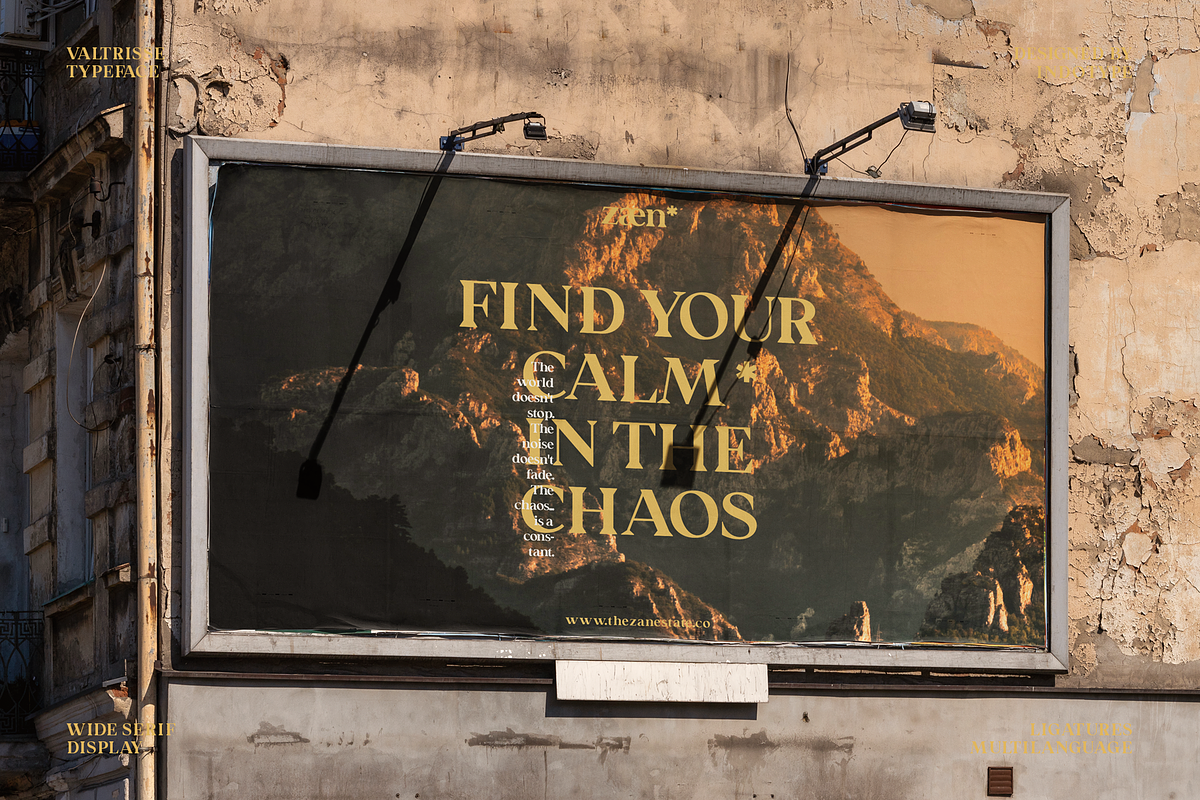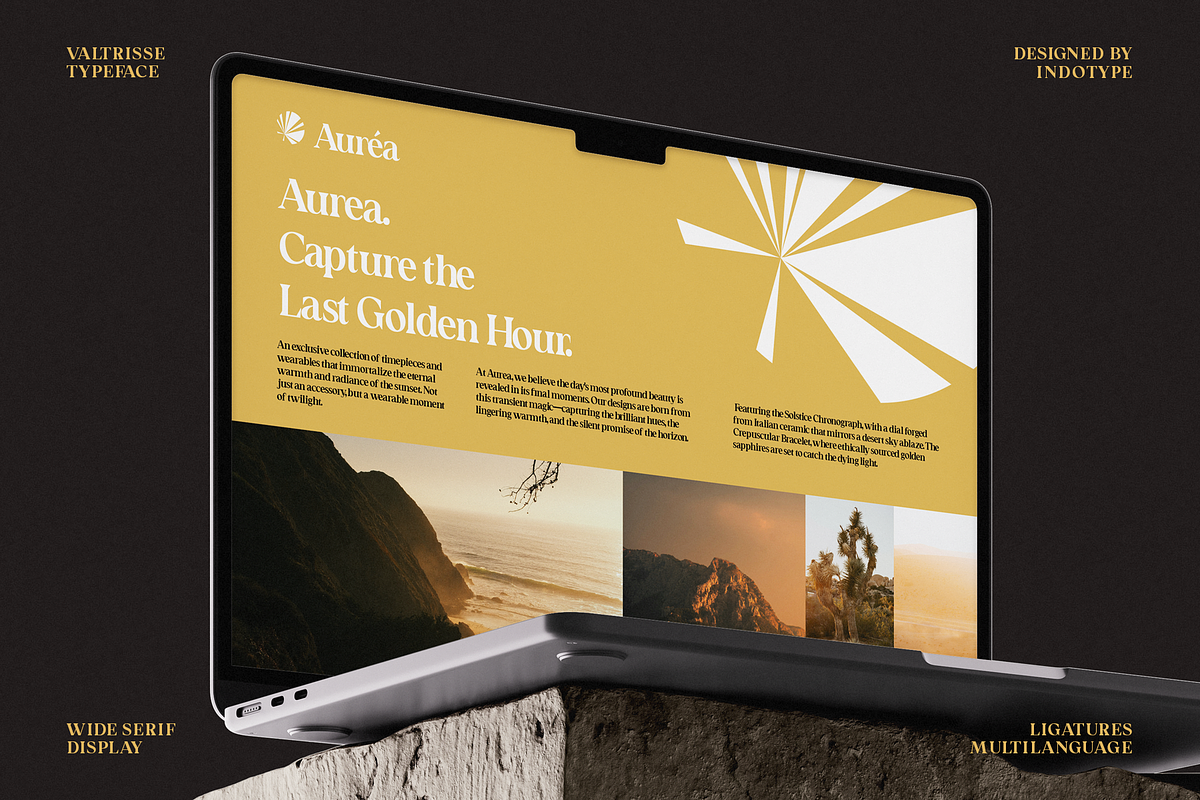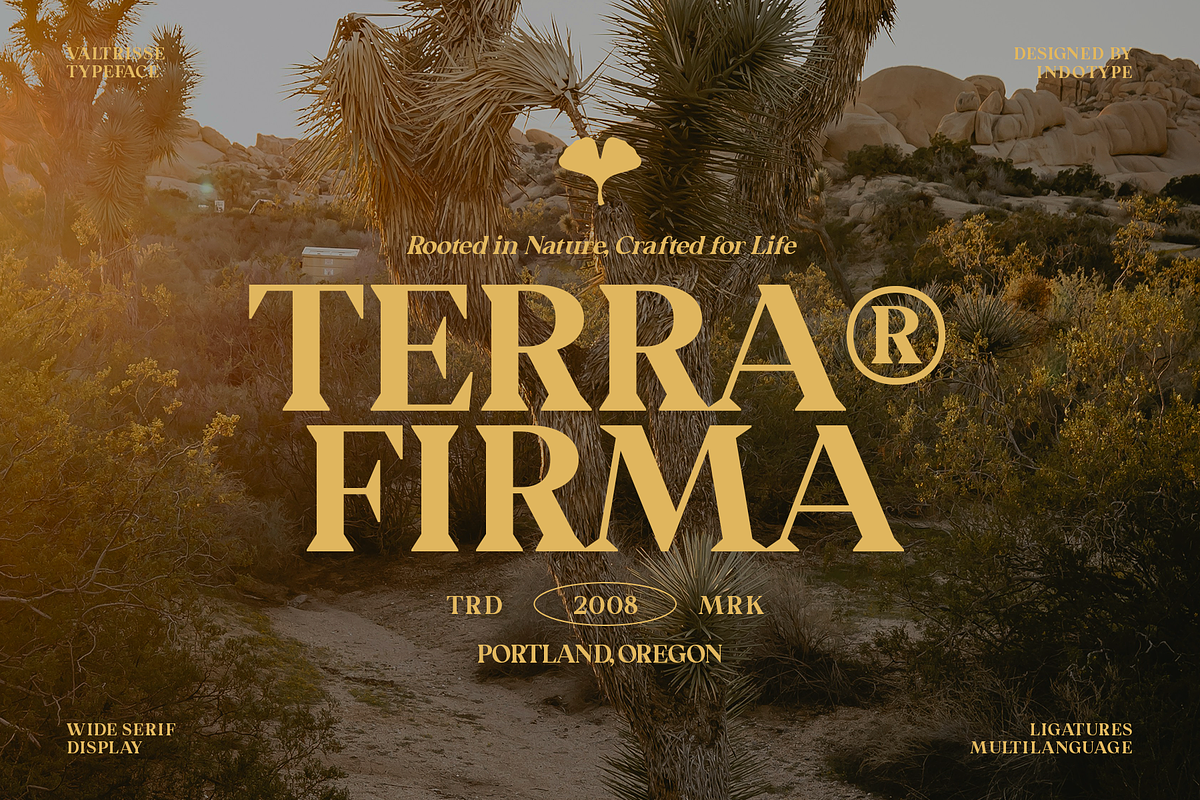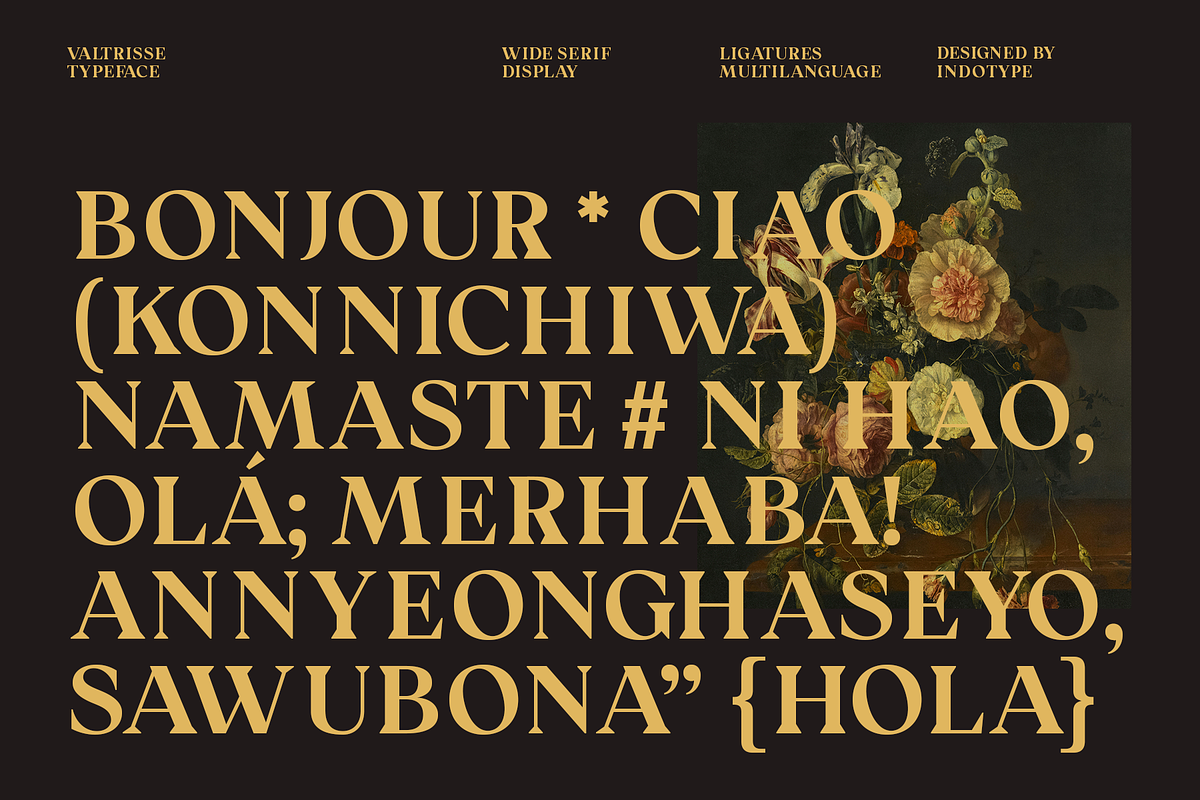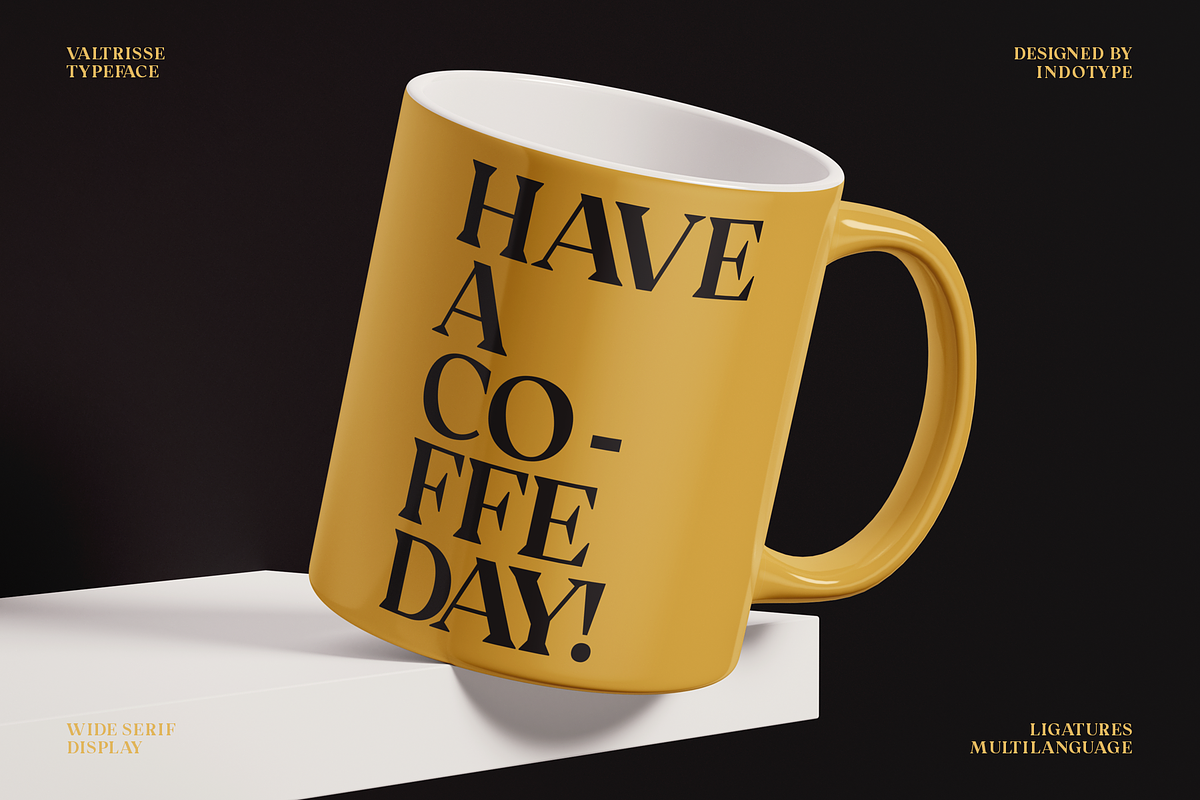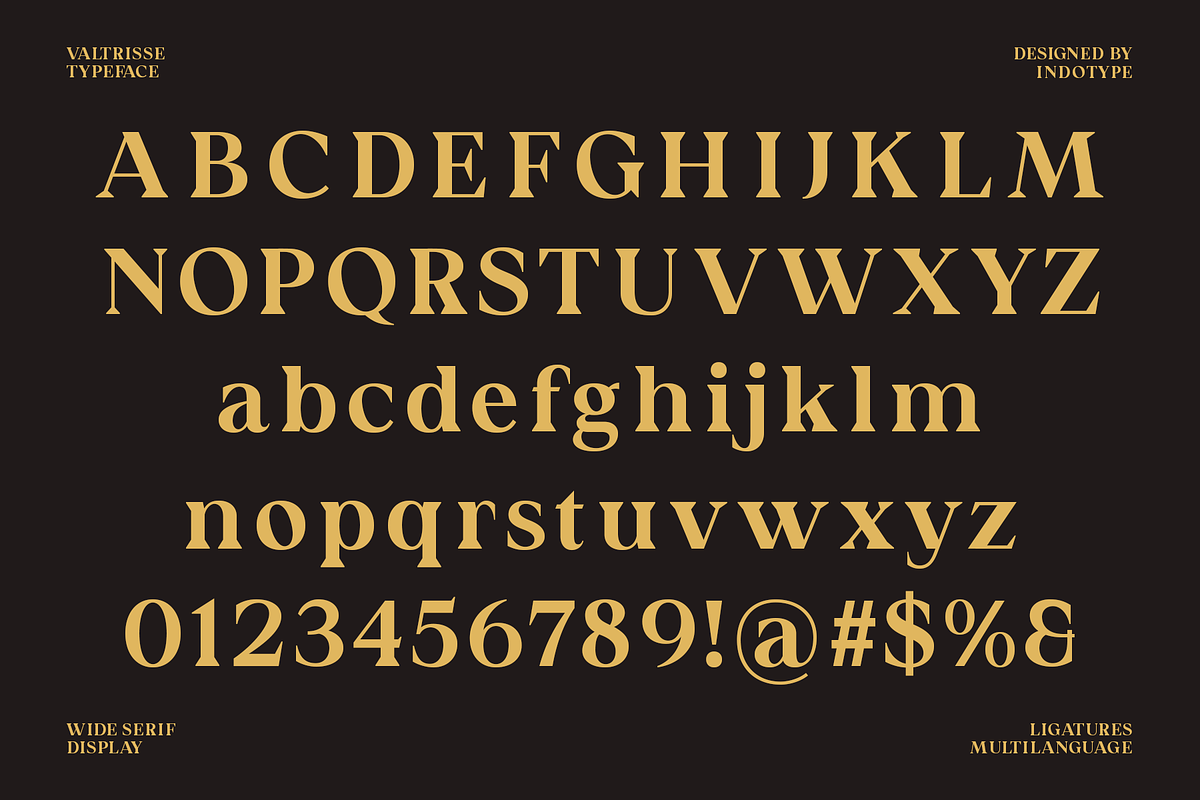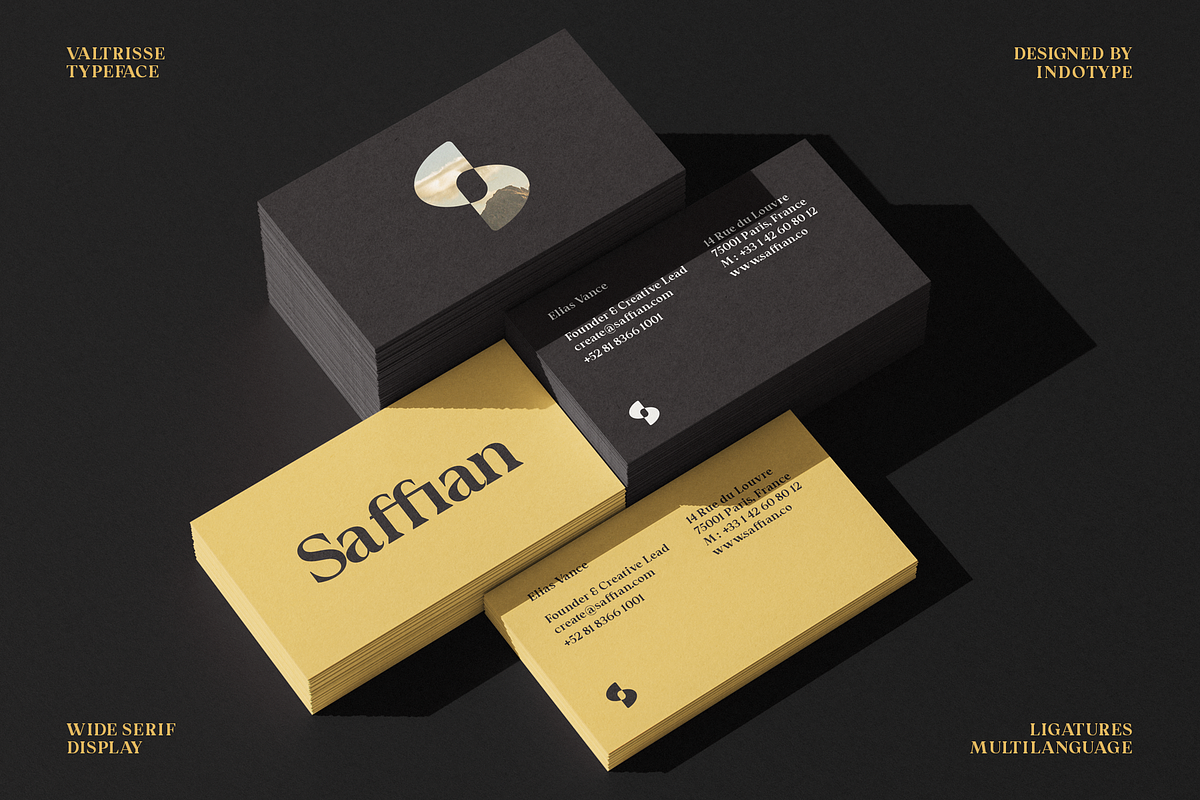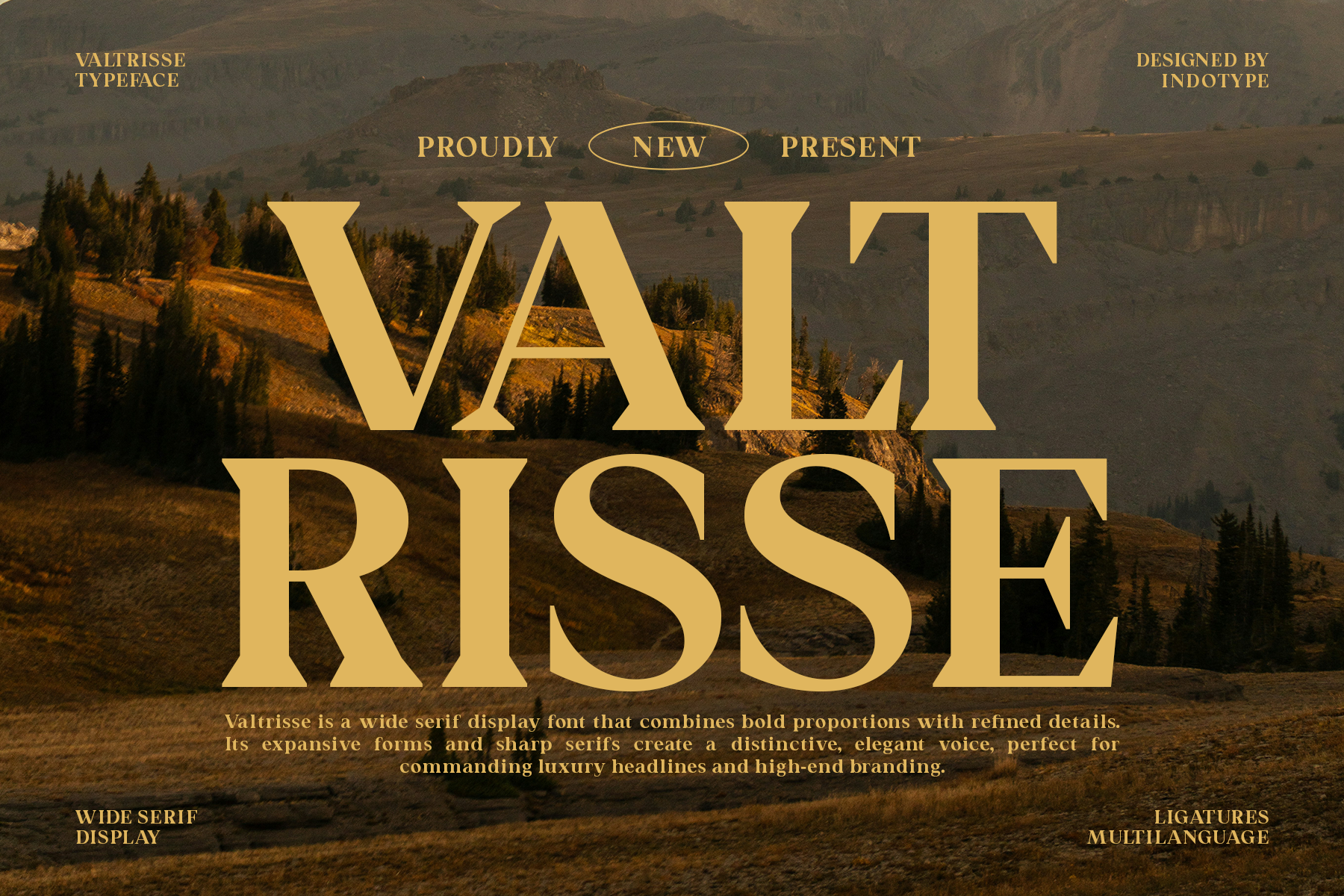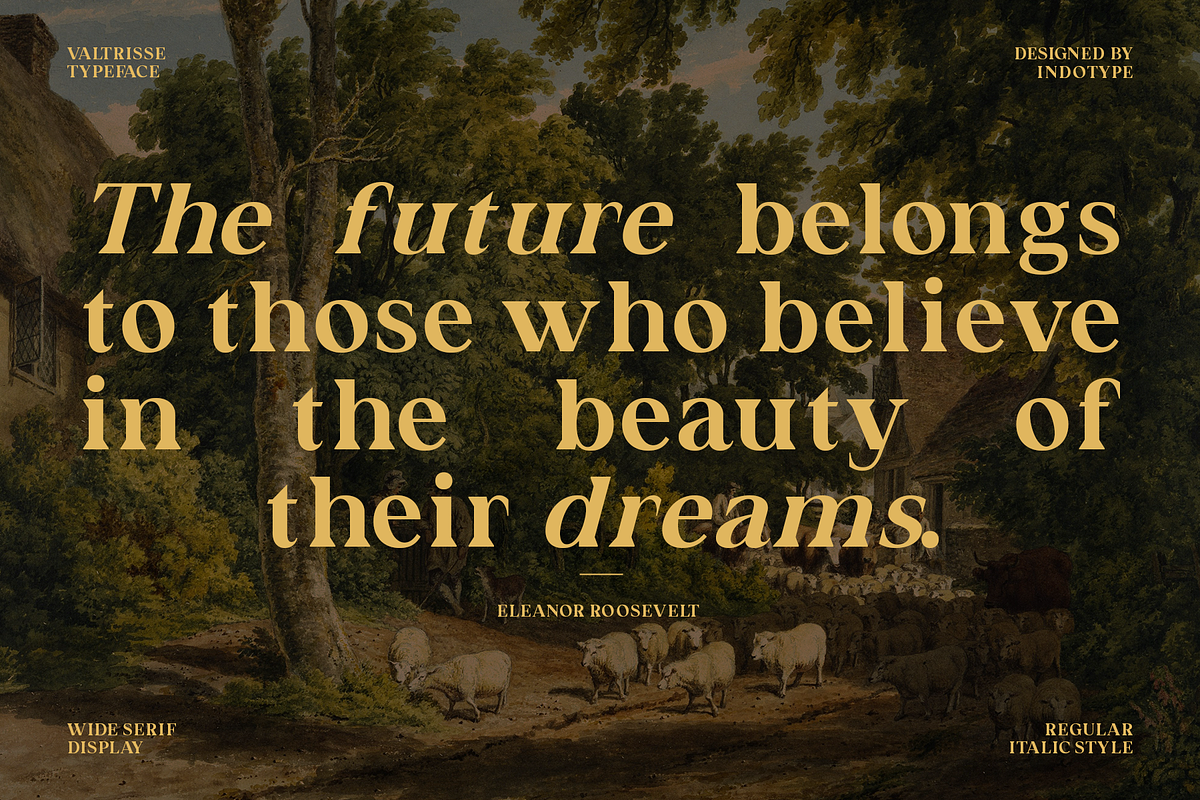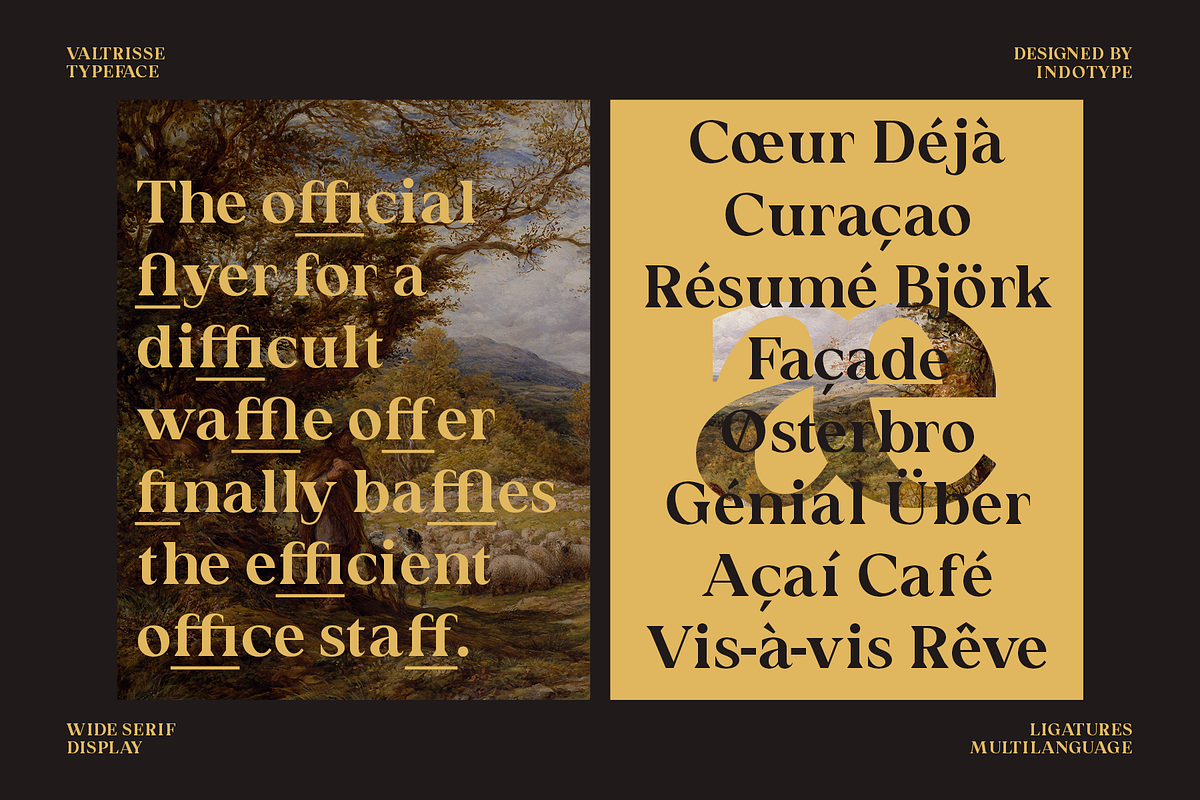
Valtrisse - Wide Serif Display Font
Valtrisse is a wide serif display font that blends bold proportions with refined elegance. Characterized by expansive letterforms, tall stems, and sharp, confident serifs, Valtrisse captures a balance between timeless sophistication and commanding modern presence. Designed to evoke a sense of grandeur, Valtrisse’s wide stance and clean precision make it an excellent choice for luxury branding, editorial titles, packaging, and high-end advertising. Each curve and serif detail has been carefully refined to ensure both impact and harmony across all caps compositions. The typeface includes ligatures and multilingual support, providing versatility for designers seeking expressive yet polished typography. Whether used for magazine headlines, logo design, or premium product branding, Valtrisse delivers an elegant, authoritative tone with enduring style.